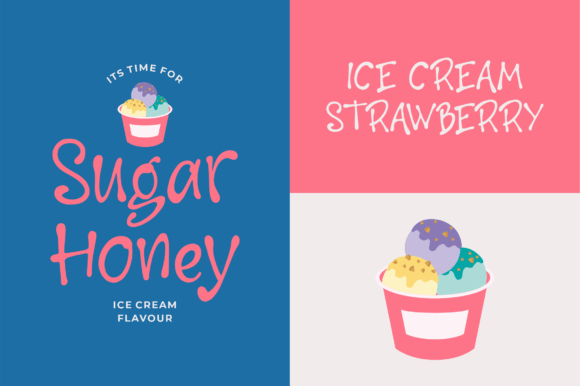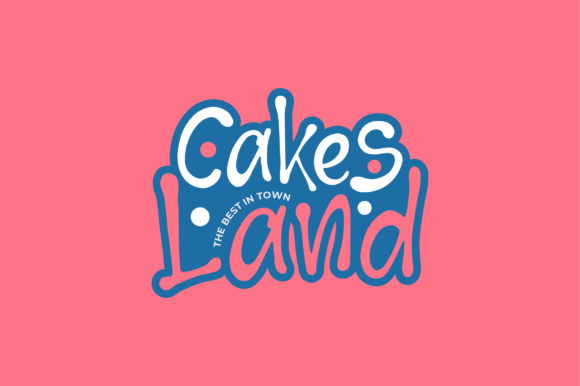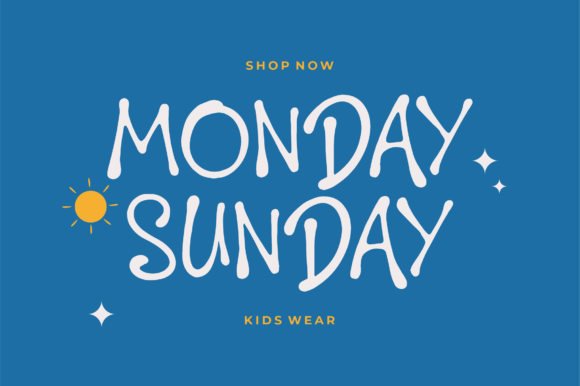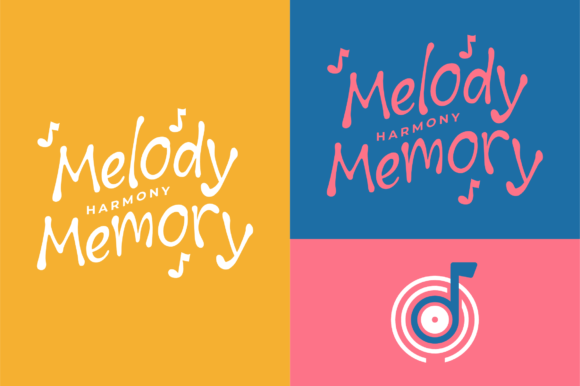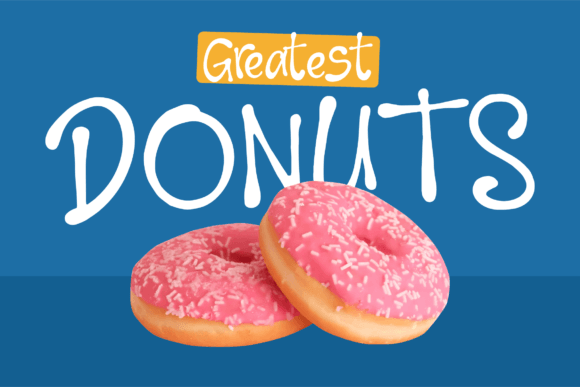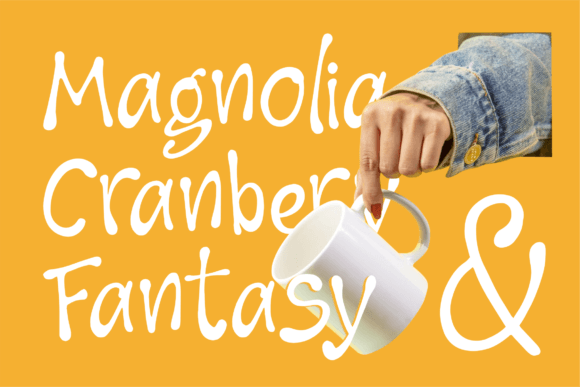
Introduction to Melankoli Honey Font
Melankoli Honey is a lovely and timeless handwritten display font.
Key Features of Melankoli Honey Font
Why Choose Melankoli Honey Font?
Melankoli Honey Font offers exceptional quality and versatility, making it a valuable addition to your design toolkit. Whether you’re creating for personal projects or commercial use, Melankoli Honey Font delivers professional results.